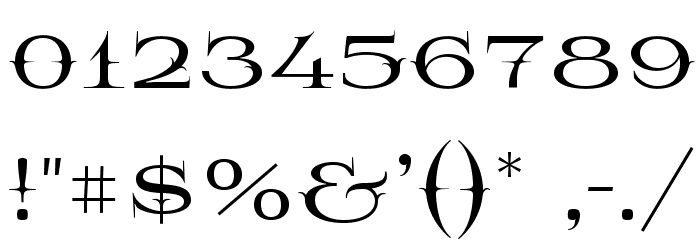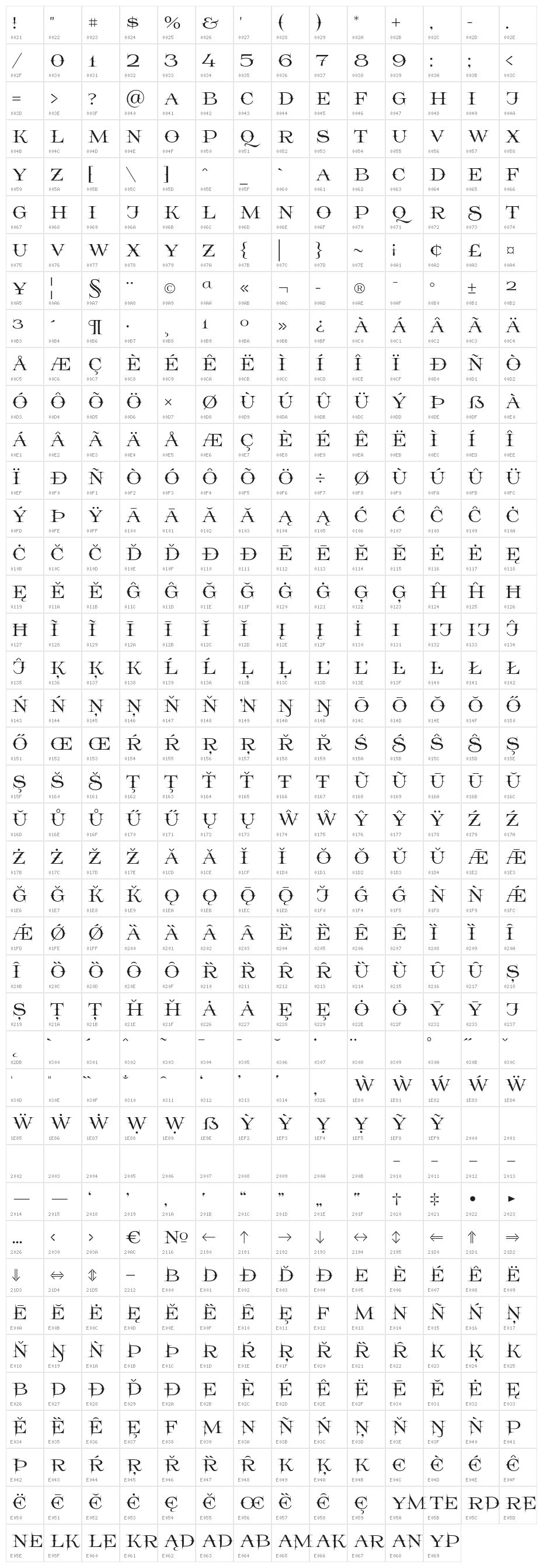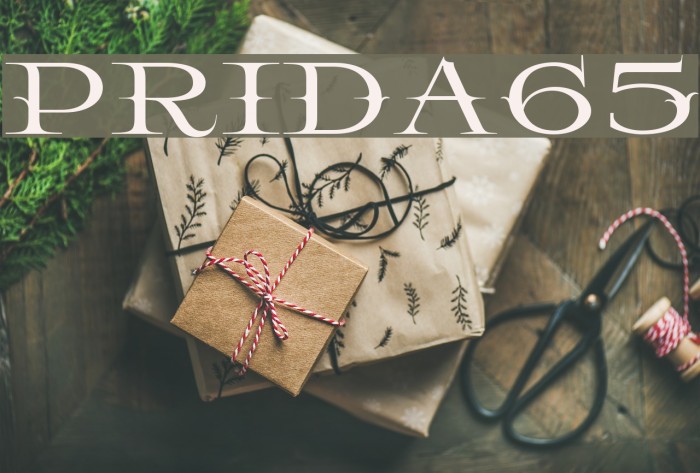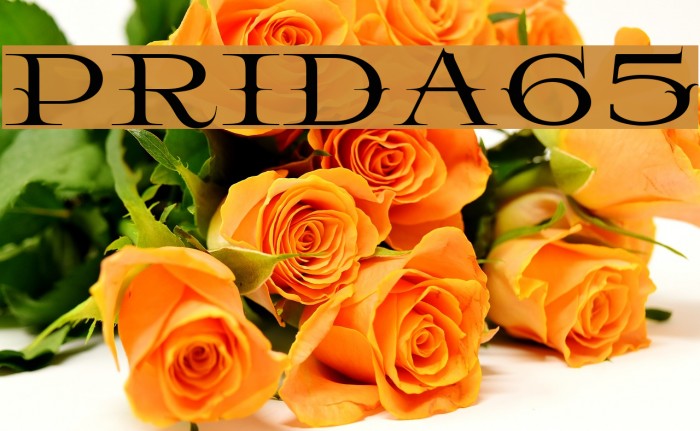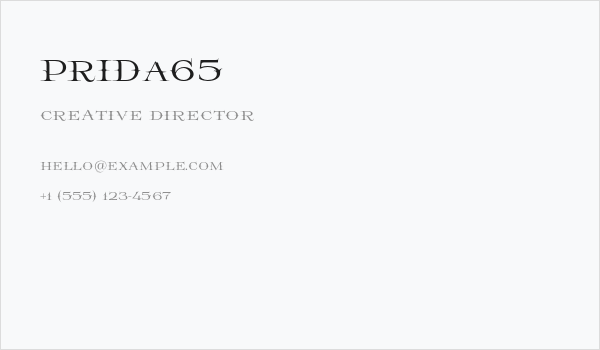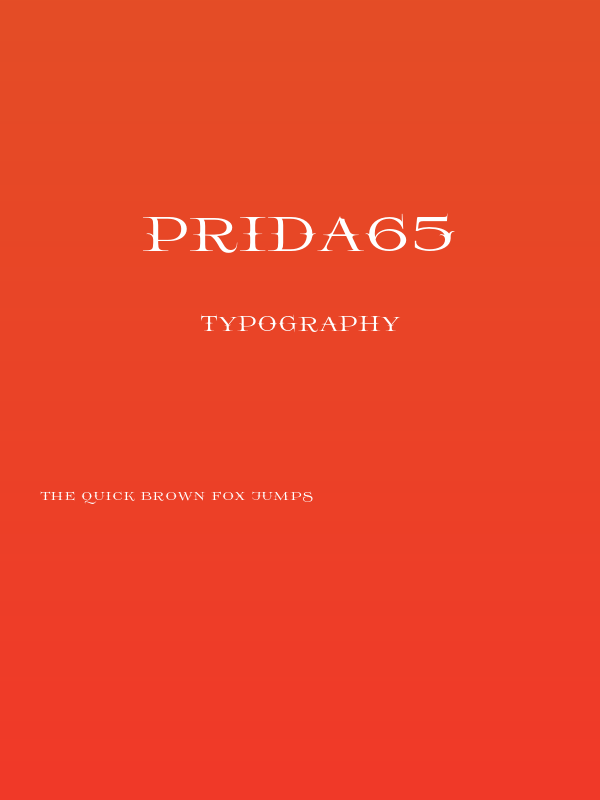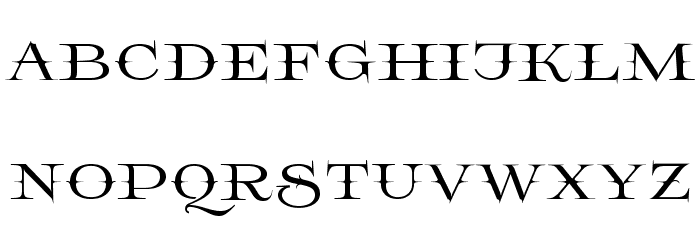
Prida65 Font
Prida65 Description
This font features a unique blend of classic serif elements with a modern twist. The characters are adorned with sharp, angular serifs that give them a distinct and edgy appearance. The uppercase letters are bold and commanding, while the lowercase letters maintain a consistent style with slightly more subtle serifs. The numerals are designed to match the overall aesthetic, with a balance of curves and angles. Special characters are crafted with attention to detail, ensuring they complement the alphabetic characters seamlessly. This font's high contrast in stroke thickness adds to its striking visual impact, making it ideal for projects that require a bold statement.
| Proposed Projects | Ideal for branding, headlines, posters, and editorial design where a bold, modern statement is needed. |